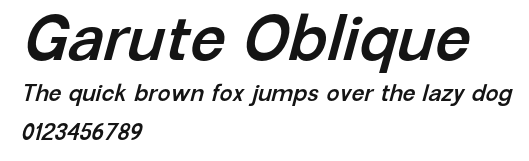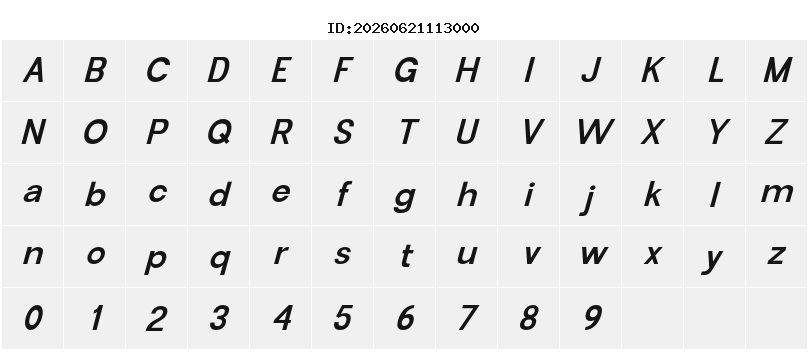
Garute Oblique Preview
• Font Name: Garute Oblique
• Full Font Name: Garute Oblique Semi Bold
• Designer: mjtype.com (Muhamad Junaid) @mjtype.font
About Garute Oblique.otf
Garute Oblique.otf is a modern, elegant sans-serif font designed for ultimate readability and visual harmony. Perfect for branding, headlines, web design, and print materials.